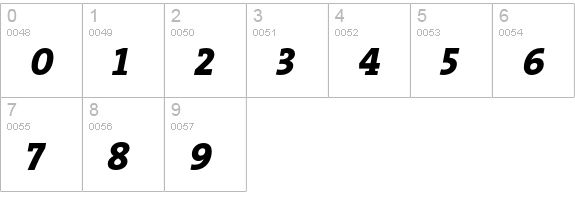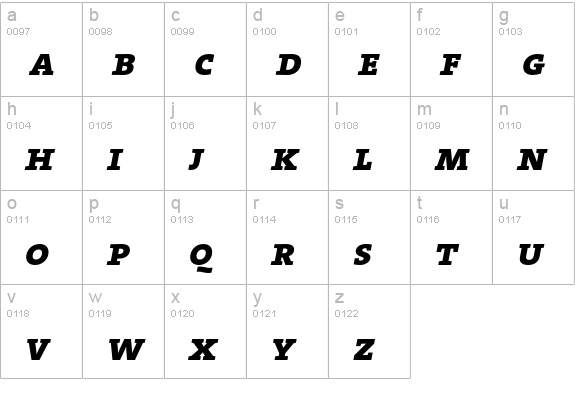
TheSerif ExtraBold Caps Italic Font Details
TheSerif ExtraBold Caps Italic is an extra-heavy, attention-grabbing, italic variant in the TheSerif typeface family \xE2\x80\x94 well suited to high-impact headlines, posters, and bold branding.
TheSerif ExtraBold Caps Italic font is a bold and elegant typeface that exudes confidence and sophistication. Its sleek and stylish design makes it perfect for adding a touch of class to any project. The combination of bold capital letters and slanted italics creates a unique and eye-catching look that captures attention. This font is not only visually appealing, but it also offers versatility in its usage. Whether you're designing a logo, creating a headline, or crafting a statement piece, TheSerif ExtraBold Caps Italic font will make your text stand out and make a lasting impression. One of the best things about TheSerif ExtraBold Caps Italic font is that it is free! Yes, you read that right. This font is freely available to download at FontsMarket.com. Say goodbye to expensive font purchases and hello to high-quality typography without breaking the bank. It's worth noting that this font is not only free but also easy to use. Its clean and well-defined characters ensure legibility, even at smaller sizes. Whether you're a professional designer or a casual user, you'll find TheSerif ExtraBold Caps Italic font a breeze to work with. So why wait? Unlock your creativity and elevate your designs with TheSerif ExtraBold Caps Italic font. Download it for free at FontsMarket.com and let your words make a bold statement.